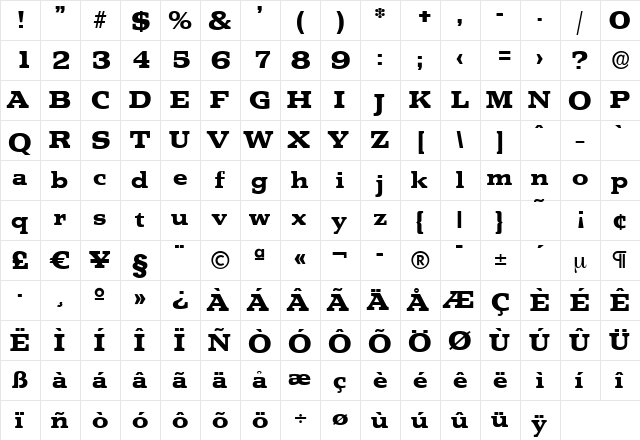
MartinBecker-ExtraBold Regular
Design Context for MartinBecker-ExtraBold Typeface
MartinBecker-ExtraBold is a composed and adaptable typeface that performs quietly and consistently across a wide range of design contexts. The heavy weight commands attention and anchors typographic hierarchies.